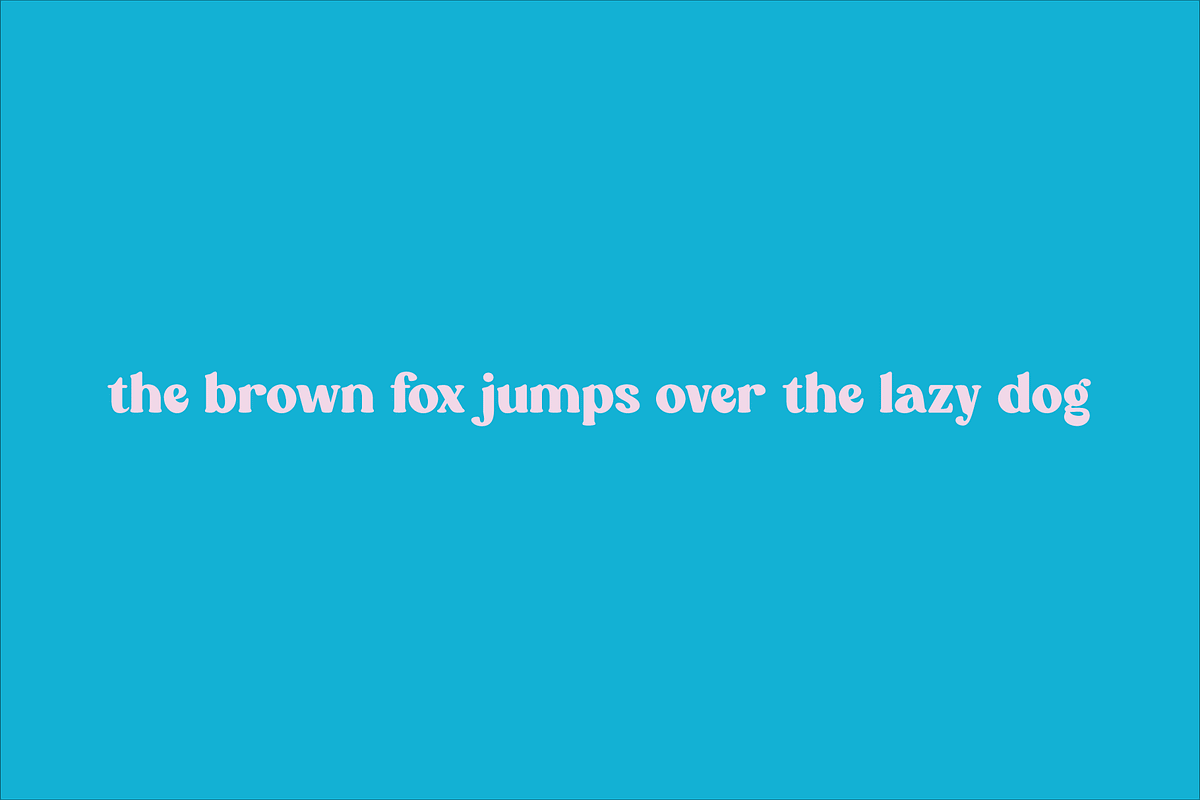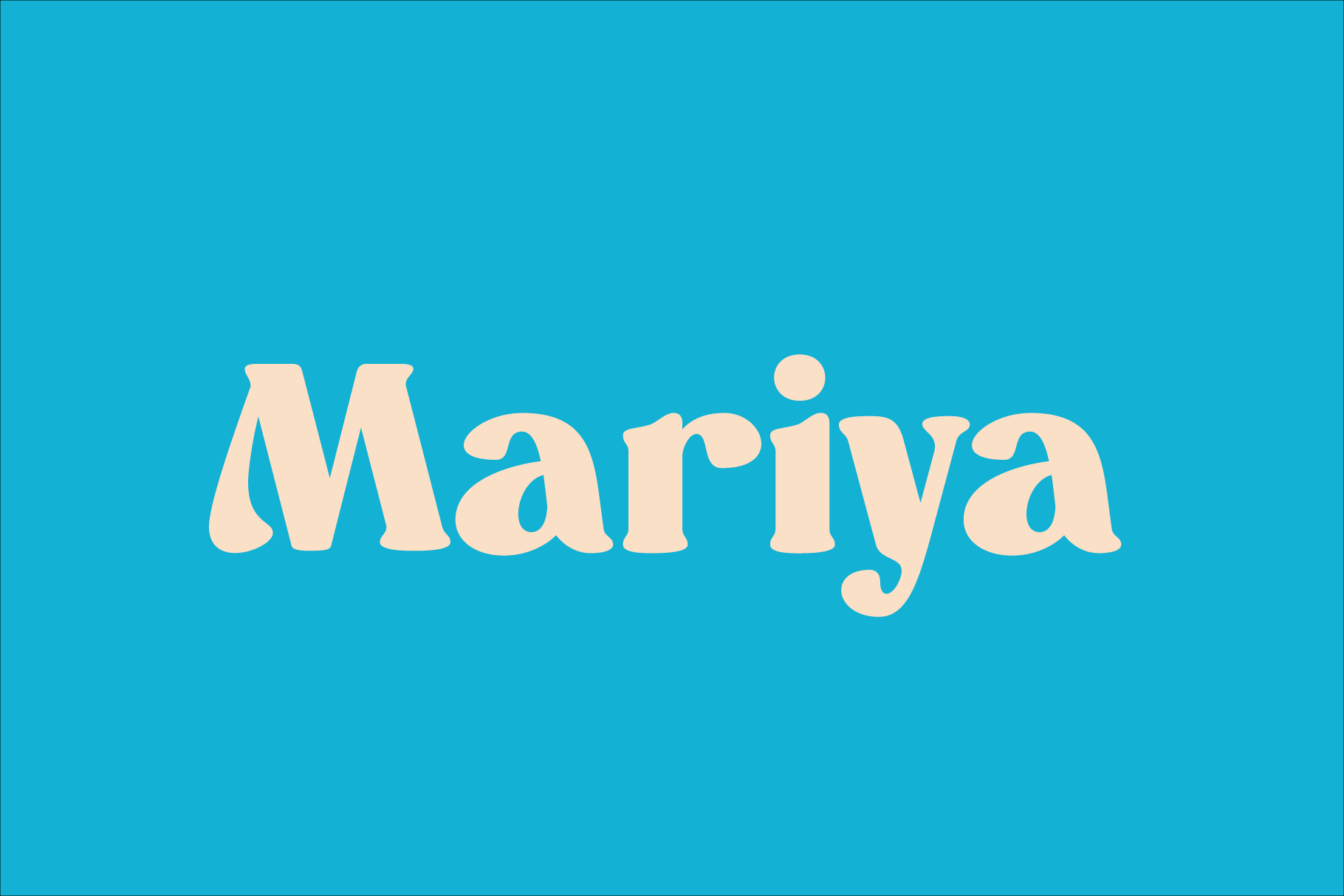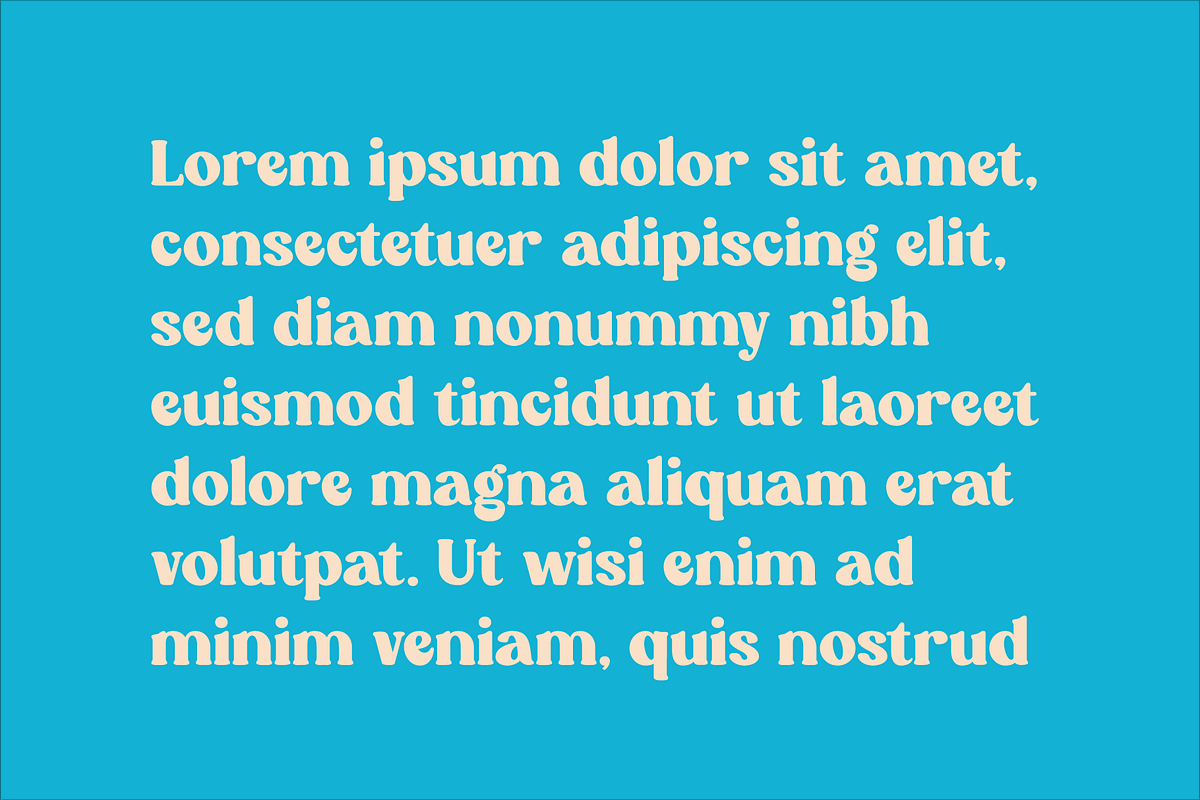
Mariya - Smooth Serif Font
Discover "Mariya," a smooth serif font that blends elegance with modern simplicity. Ideal for designers who appreciate soft, flowing lines in their typography, Mariya is perfect for a wide range of applications, including editorial work, sophisticated branding, and graceful advertising.
Mariya's design is characterized by its rounded serifs and smooth transitions, making it exceptionally appealing for both digital and print media. This font provides excellent legibility and a soft yet striking appearance that enhances any textual content. It's particularly effective in creating a warm, inviting ambiance for lifestyle magazines, luxury brand presentations, and chic digital platforms.
The font includes a versatile set of characters, encompassing uppercase and lowercase letters, numerals, punctuation, and broad multilingual support. Whether you're designing a boutique's website, crafting editorial content for a high-end publication, or developing promotional materials, Mariya delivers elegance and readability in one seamless package.
Mariya is the essential smooth serif font for adding a touch of softness and sophistication to your design projects.